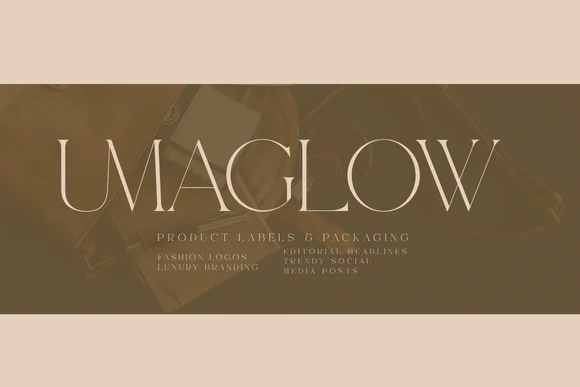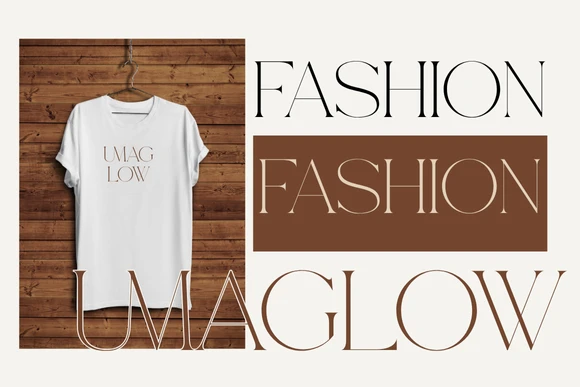
Discover the timeless appeal of our Regular Font — a clean, balanced, and highly legible typeface perfect for any project. Whether you’re designing logos, social media graphics, invitations, websites, or branding materials, this versatile font adds a professional and polished look to your work. Optimized for print and digital use, our Regular Font supports multilingual characters and includes uppercase, lowercase, numbers, punctuation, and special symbols to meet all your creative needs.
Perfect for designers, small businesses, and creators looking for a simple yet stylish font that works across various themes and platforms.